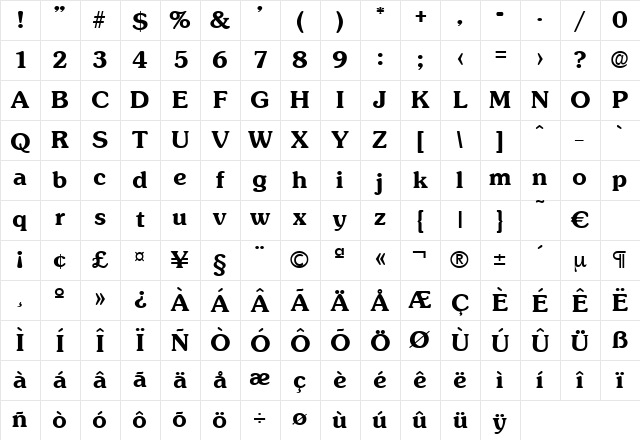
Sunset-DemiBold Regular
Design Context for Sunset-DemiBold
Sunset-DemiBold is a composed and adaptable typeface that performs quietly and consistently across a wide range of design contexts. Its bold stroke weight gives it real presence on the page.
Pro Tip: Use Sunset-DemiBold in both headline and body roles to test its range before committing to a single application.